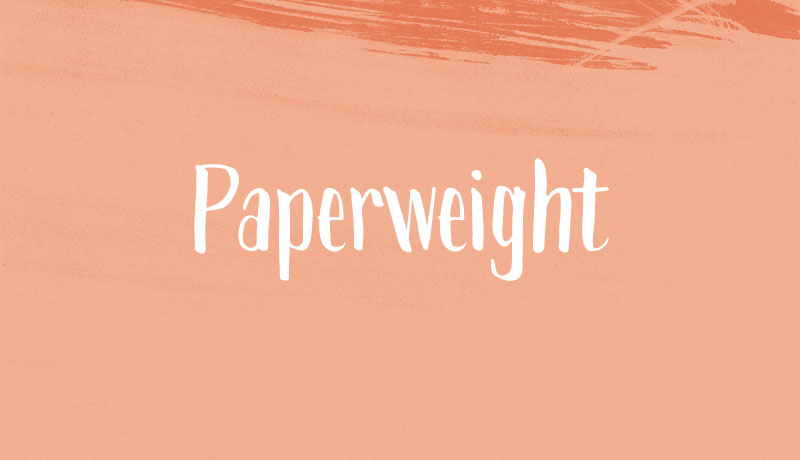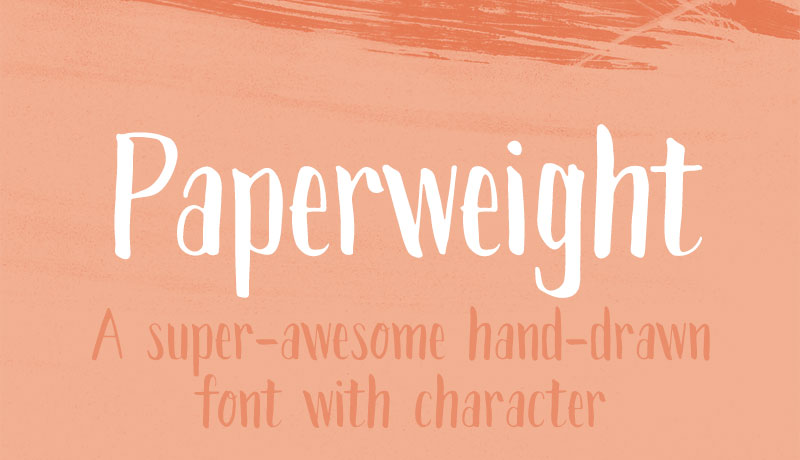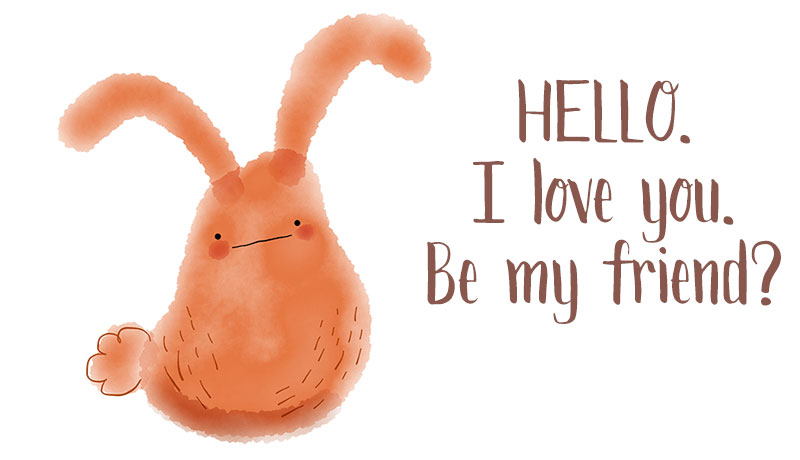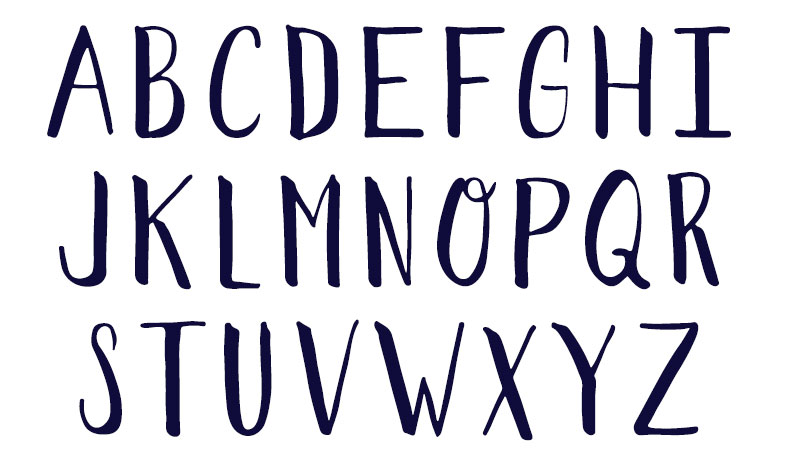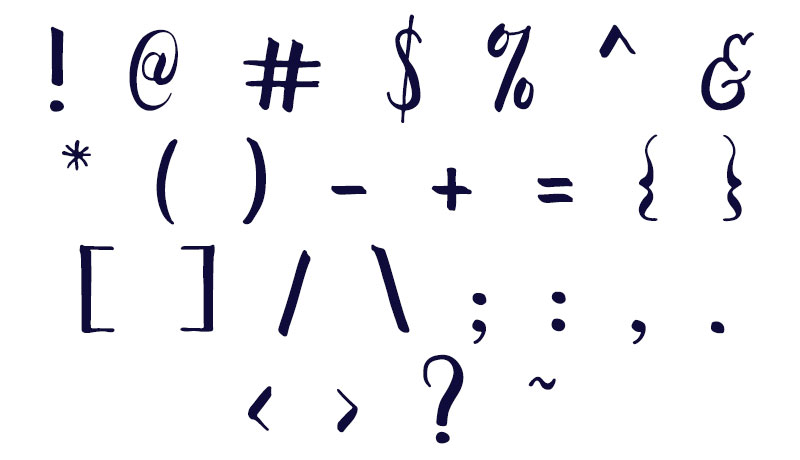
Paperweight Font
The Paperweight font is a perfect way to add a hand drawn lettering touch to your designs, whether you use it on the web, on a printable greeting card, or elsewhere. The font was carefully created by hand using a thin brush marker and features a comprehensive set of glyphs including uppercase, lowercase, numeric, and symbols.